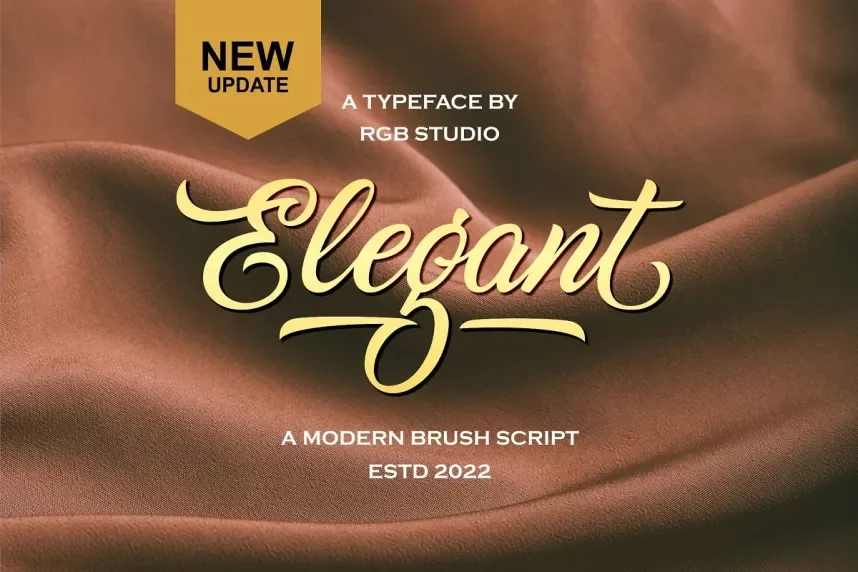
Elegant fonts don't shout, they speak with style. Whether it’s a wedding invite, a fashion logo, or a classy website header, these typefaces carry a quiet confidence. They often feature delicate strokes, graceful curves, and just the right amount of flair to feel upscale without being overdone.
Common Styles: Serif, Script, Calligraphy
Often Inspired By: Classic editorial layouts, luxury branding, historical type
Popular Fonts: Didot, Playfair Display, Parisienne, Cormorant Garamond
Usage: From vintage fashion labels to minimalist design portfolios
Thin-to-thick stroke contrast for visual elegance
Swashes and flourishes in scripts for added personality
High legibility while maintaining decorative details
Often paired with neutral or minimal fonts for balance
Use these fonts where tone and aesthetics really matter wedding materials, luxury products, and restaurant menus. To avoid going overboard, pair them with modern sans-serifs like Lato or clean geometric fonts like Mont. That contrast helps the elegance shine without overwhelming the layout.